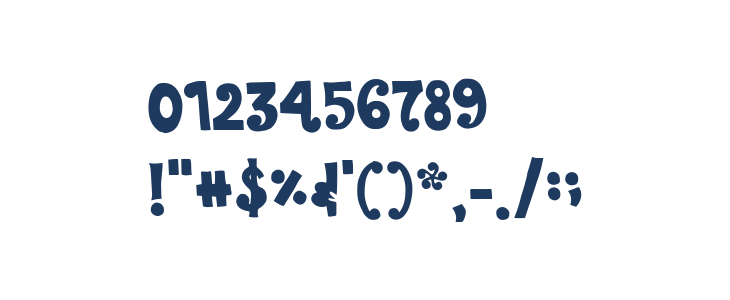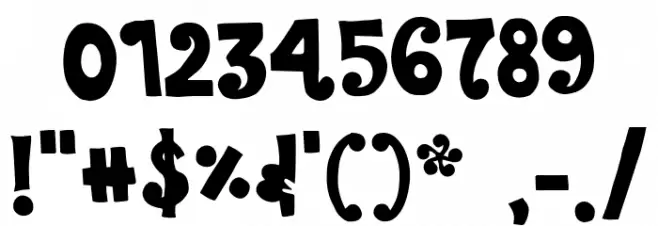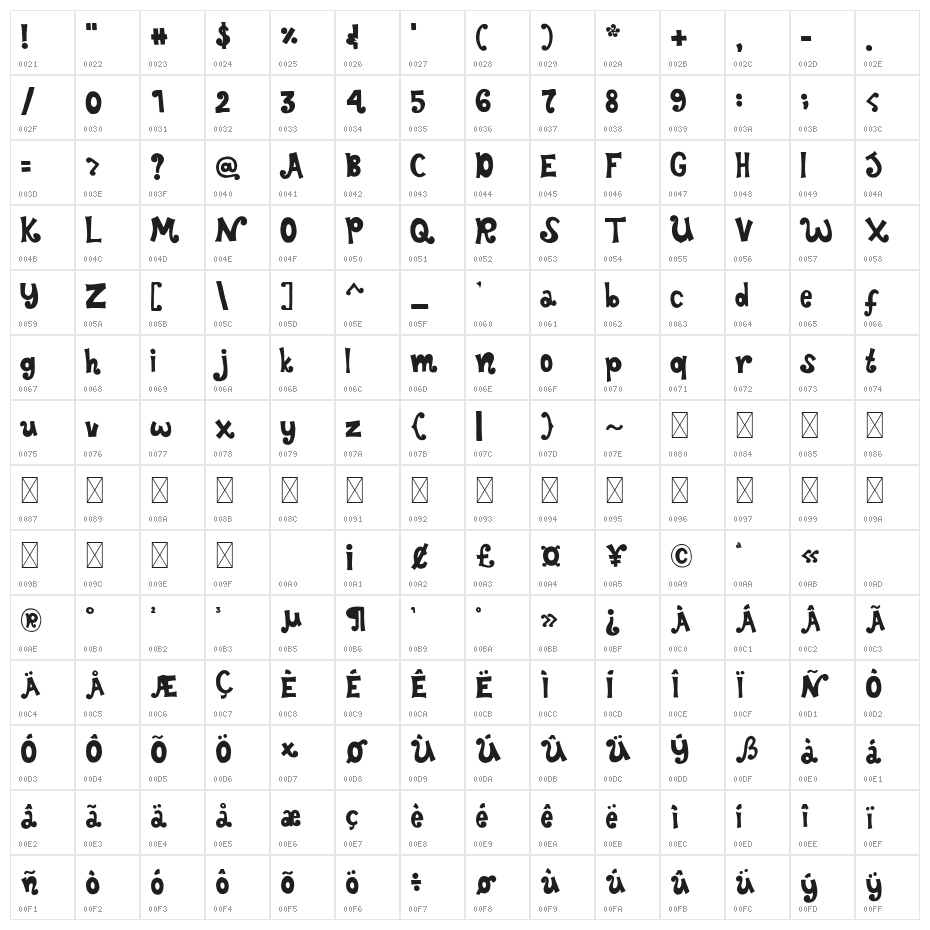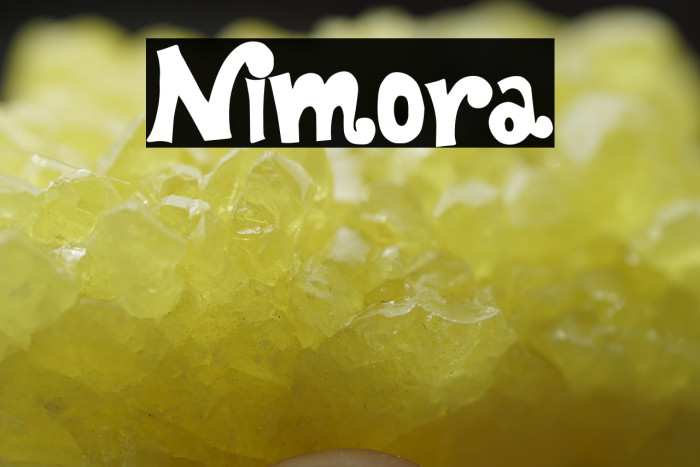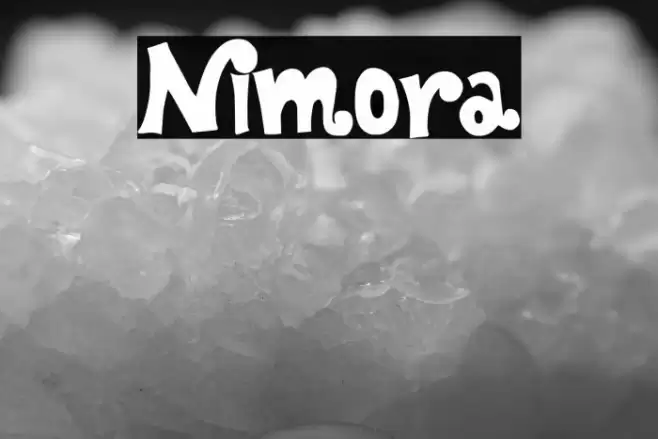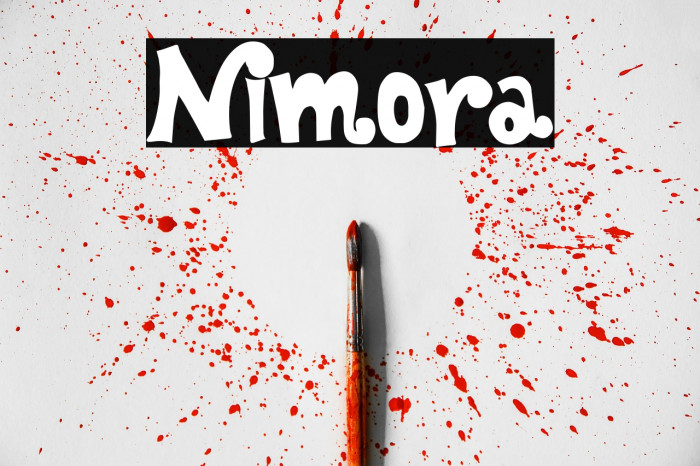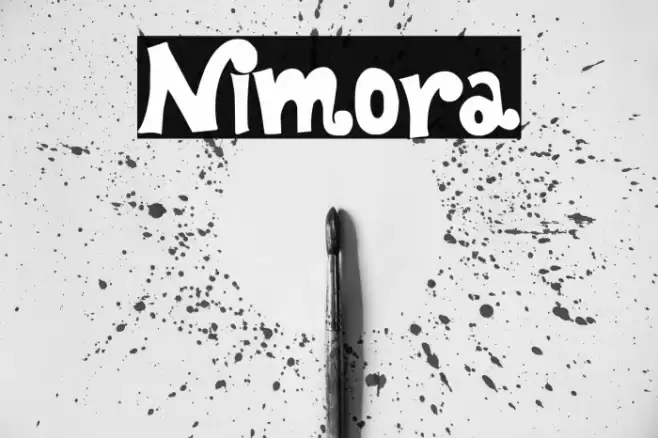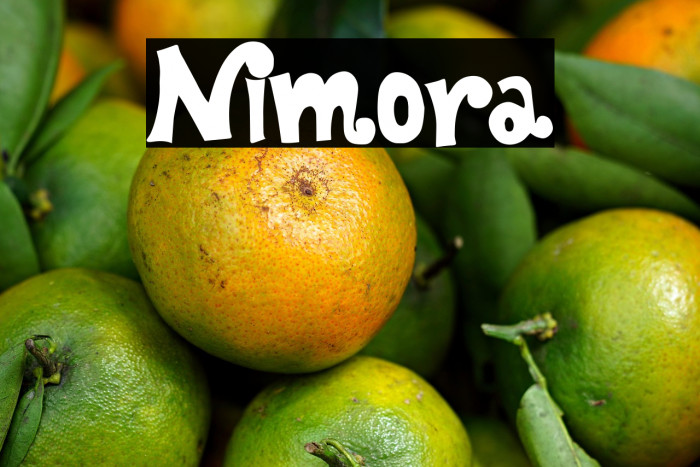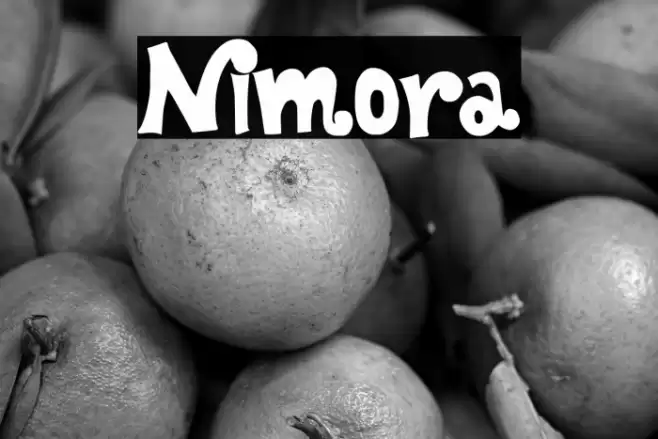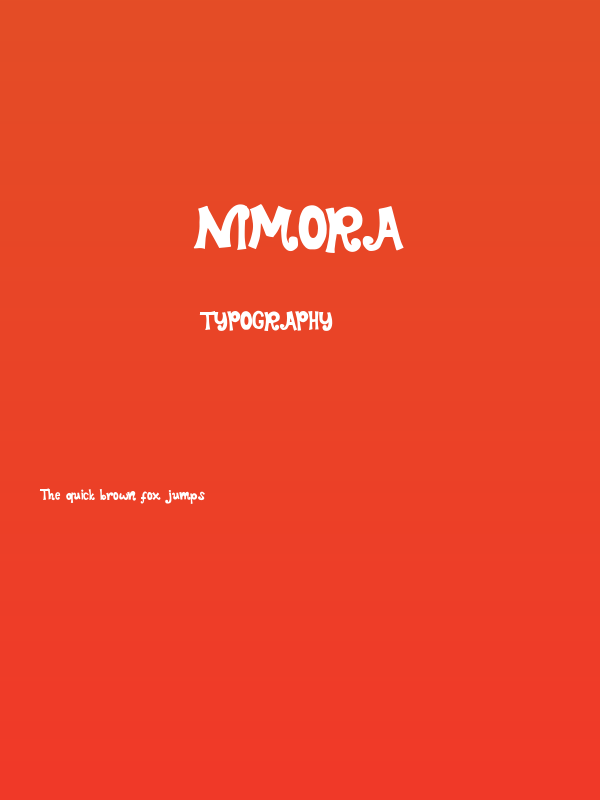
Nimora Font
Nimora Description
This font features a playful and whimsical design, characterized by its bold and curvy letterforms. The uppercase and lowercase letters exhibit a consistent style with exaggerated curves and swirls, giving it a lively and energetic appearance. The numbers and special characters maintain this playful aesthetic, making the font suitable for creative and informal applications. Its unique style is both eye-catching and memorable, ideal for projects that require a touch of fun and personality.
| Proposed Projects | Ideal for children's books, party invitations, playful branding, and creative posters. |